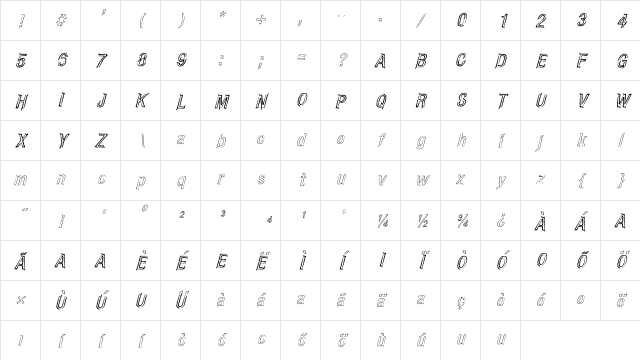
Complete CARBONCILLO PALO Italic glyph index. Displaying only characters natively supported by CARBONCILLO PALO Italic font.
CARBONCILLO PALO is a composed and adaptable typeface that performs quietly and consistently across a wide range of design contexts. The slanted form adds forward momentum and visual energy.